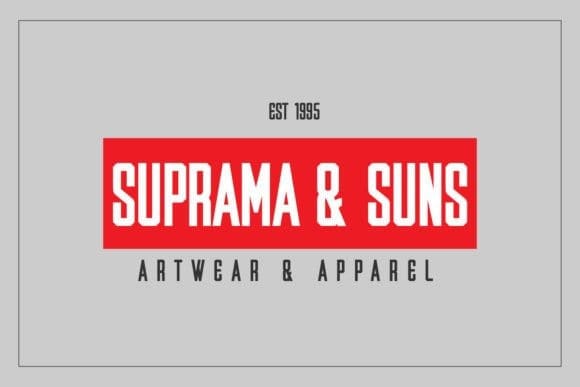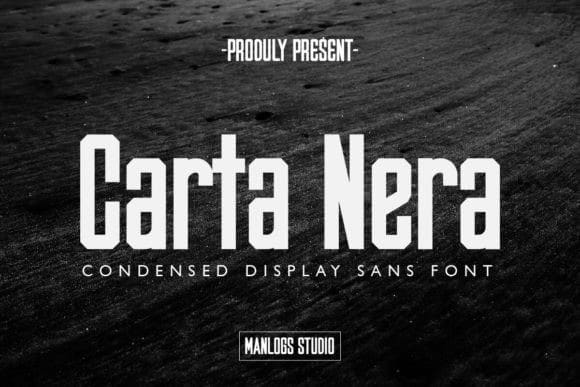
Carta Nera Font
Carta Nera Font is a bold, condensed display typeface with a bold and athletic aesthetic. Punched corners with rounded edges smooth out some of the harshness and large x-height. This font can make your project or design better and very cool.